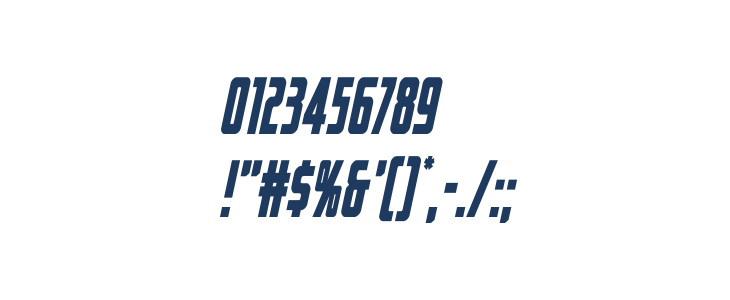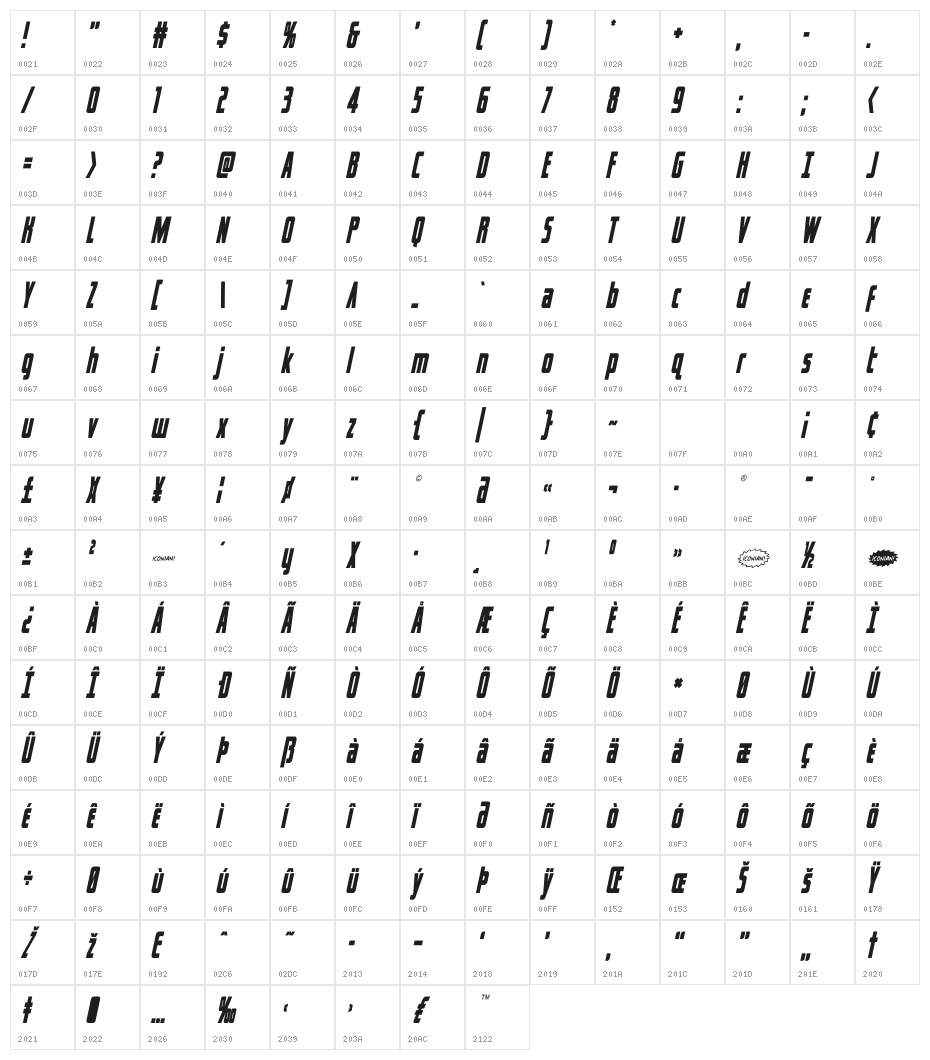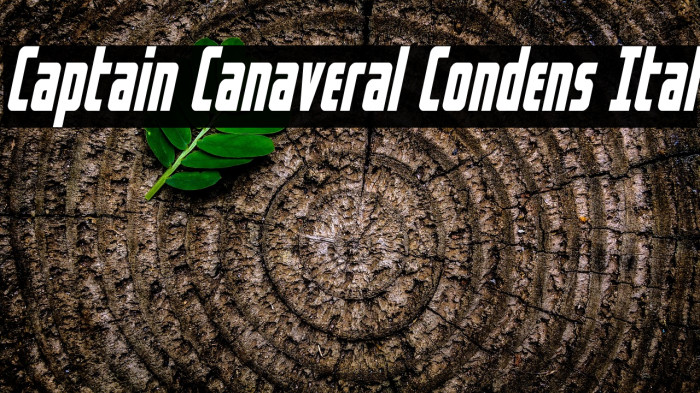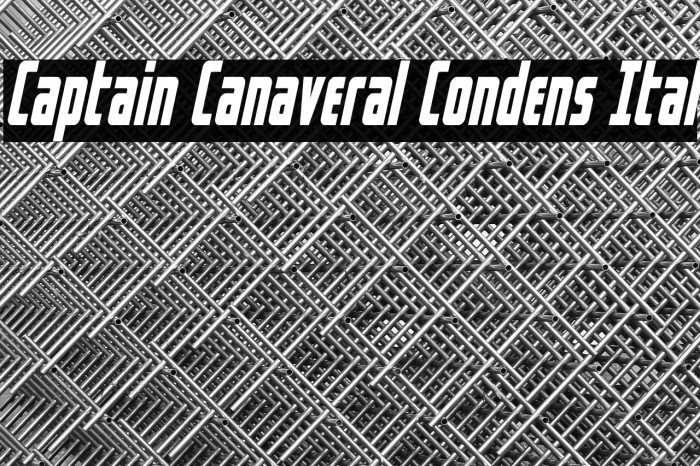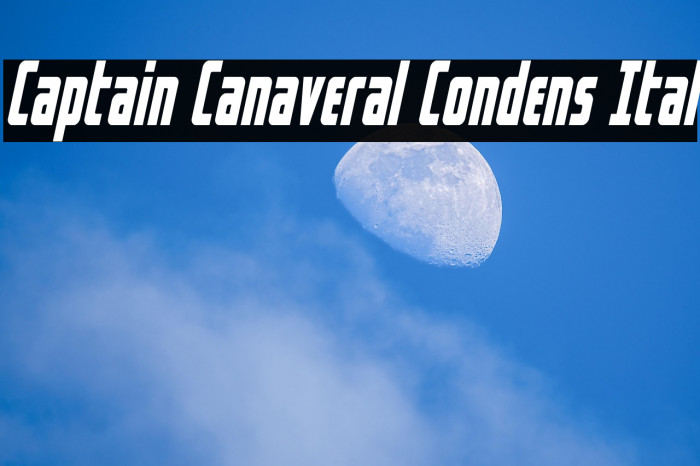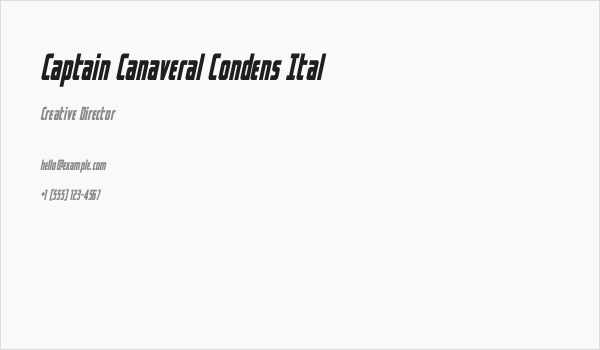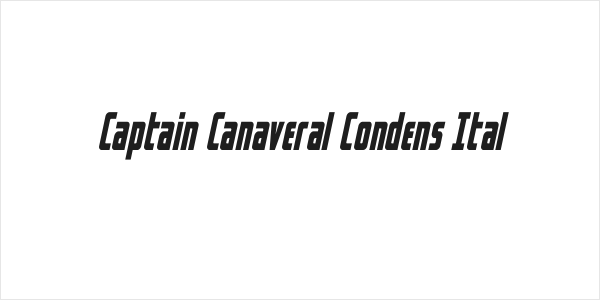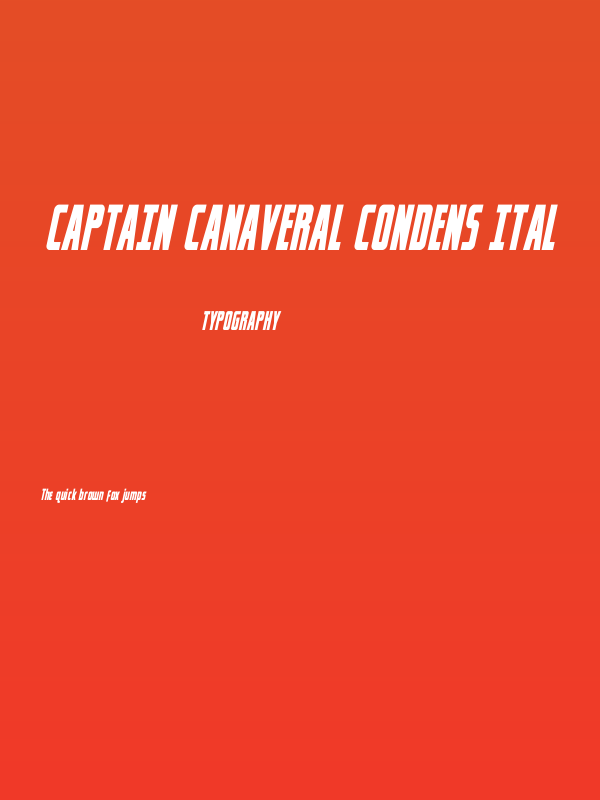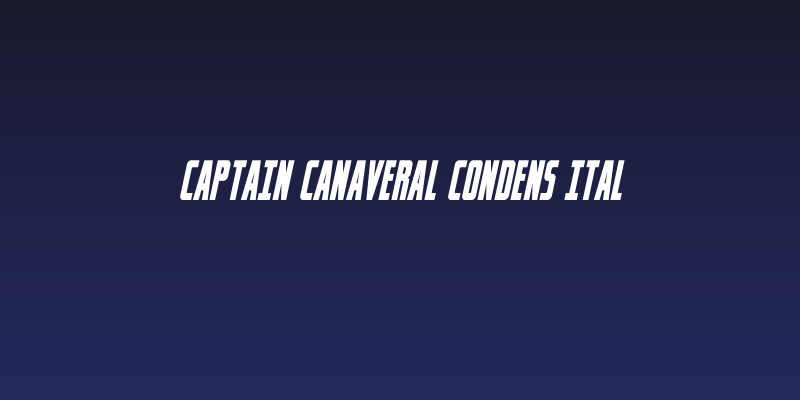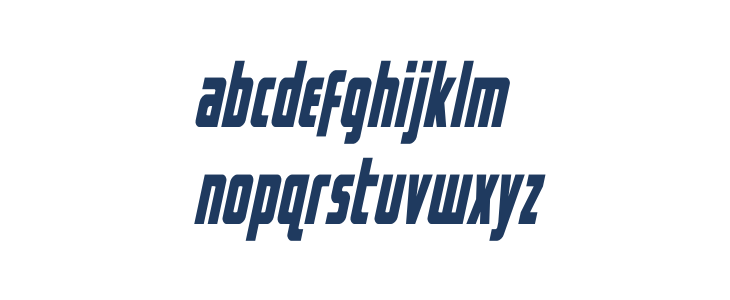
Captain Canaveral Condens Ital Font
Captain Canaveral Condens Ital Description
This font features a bold and dynamic style with a condensed width and italicized slant, giving it a sense of motion and energy. The uppercase and lowercase letters are designed with sharp angles and clean lines, creating a modern and sleek appearance. The numerals and special characters maintain the same boldness and angularity, ensuring consistency throughout the typeface. The overall design is striking and impactful, making it suitable for attention-grabbing headlines and titles.